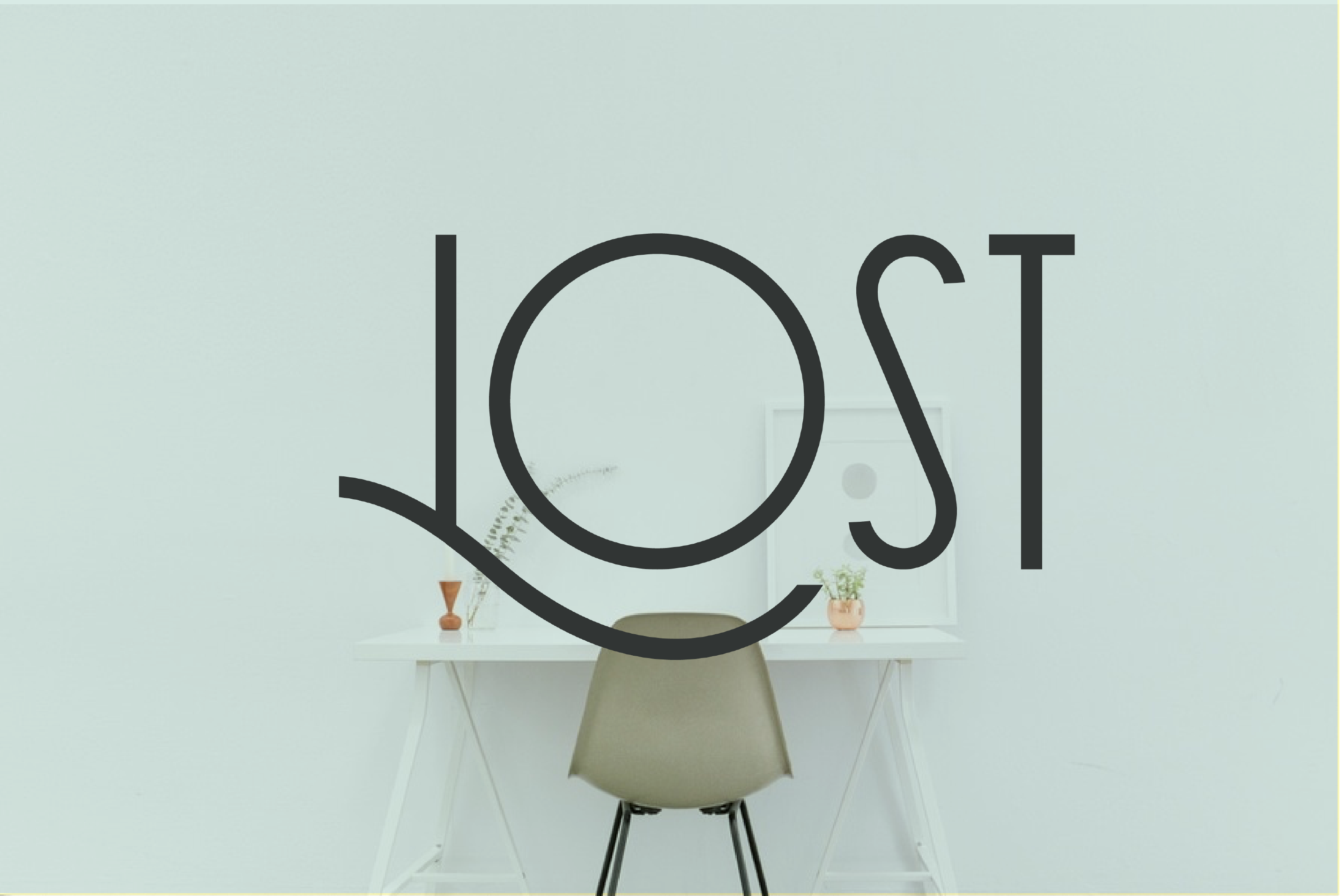
RedFlower Typeface the beautiful modern style, Minimalist, fresh, soft with consistent strokes, equipped with Multilingual, swash, fractions, catchword featured RedFlower suitable for logo, invitation, card, quote,header and many more
Typeface Set
- Standard Chartater
- Numeral
Open Type Featured
- Stylistic Alternete
- Fractions